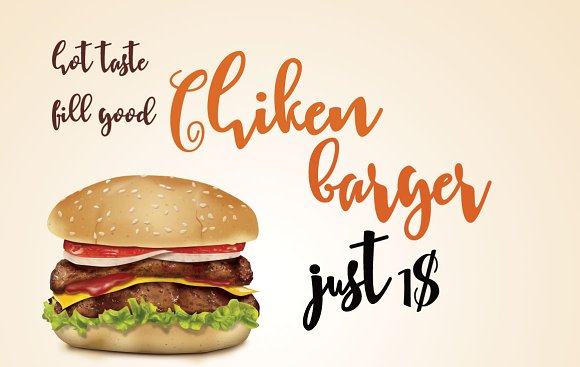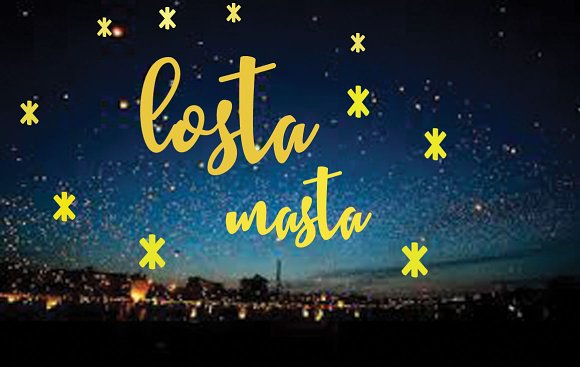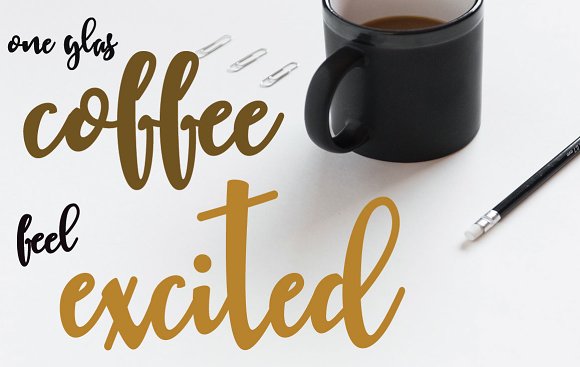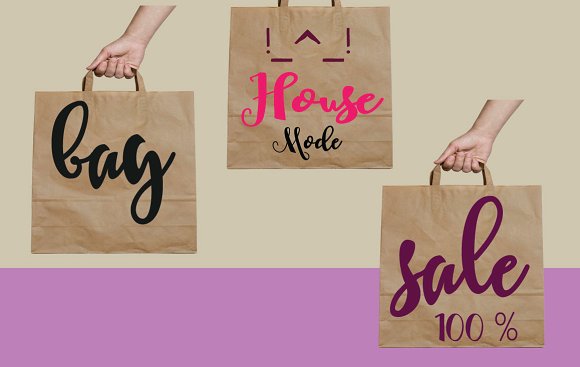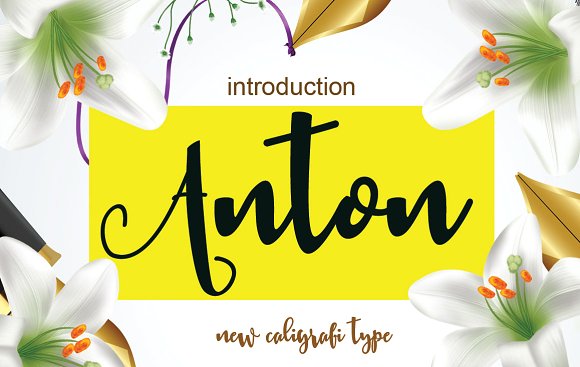
Anton Script Font
Anton is modern script font and modern script style, every single letters have been carefully crafted to make your text looks beautiful. this font will perfect for many different project ex:, poster,, branding,logo, fashion, apparel, letter, invitation, wedding, stationery, quotes, blog header. etc.